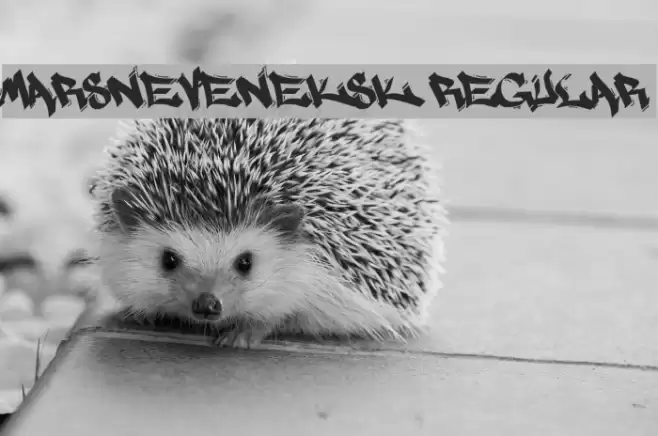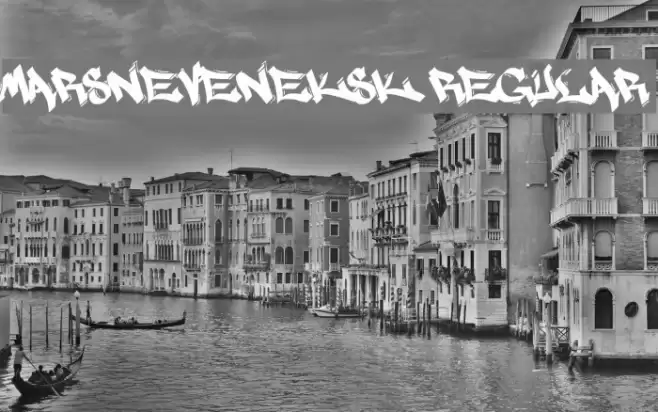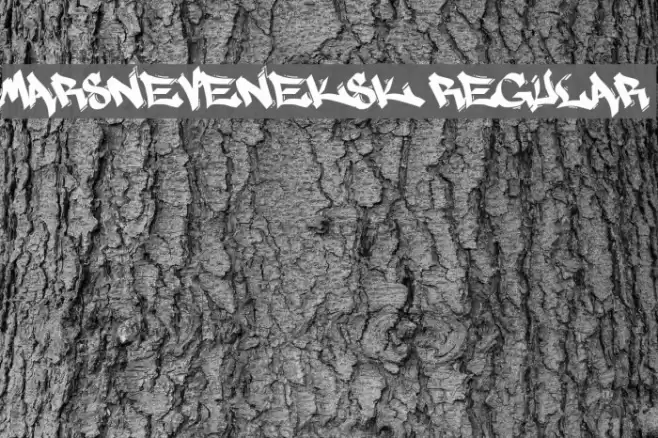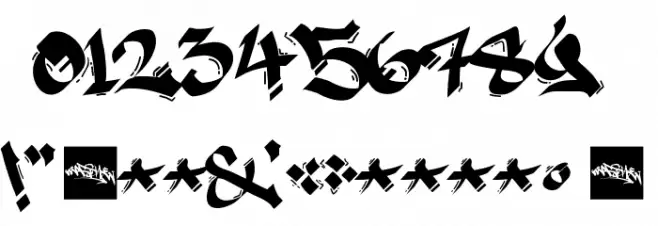
MARSNEVENEKSK Regular Font
MARSNEVENEKSK Regular Description
This font features a bold, graffiti-inspired style with sharp, angular lines and a dynamic, energetic appearance. The characters are heavily stylized, with exaggerated strokes and a sense of movement that captures the essence of street art. The uppercase and lowercase letters maintain a consistent theme, with each character exhibiting unique flourishes and details. Numbers and special characters are equally expressive, adding to the overall cohesive look. The font's design is perfect for projects that require a rebellious or urban aesthetic, making it ideal for creative and unconventional uses.
A bold, graffiti-inspired font with sharp, angular lines and dynamic energy from Uncategorized fonts.
- Proposed Projects: Ideal for street art designs, urban-themed posters, music album covers, and edgy branding projects.
- Character Spacing: Tight
- Overall Style: Modern, Urban